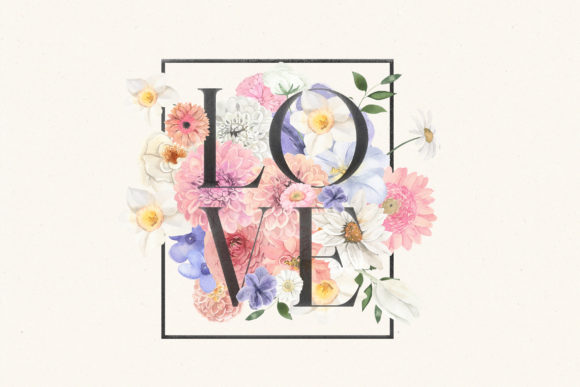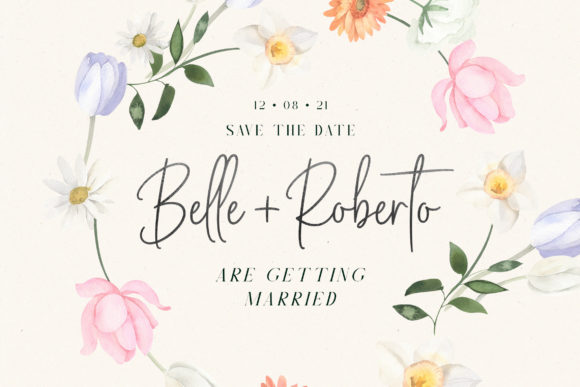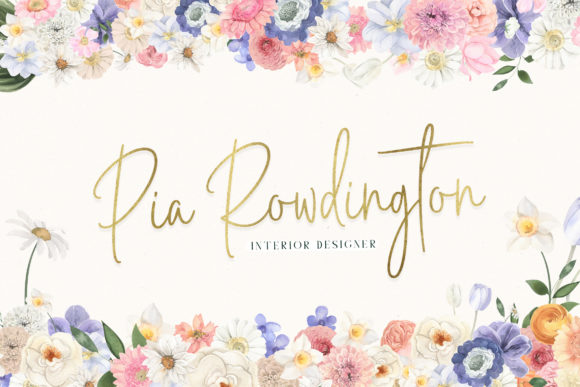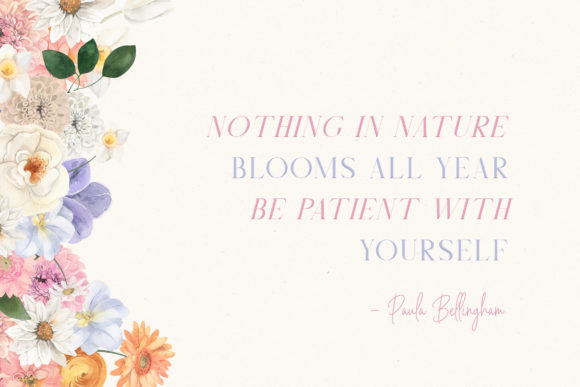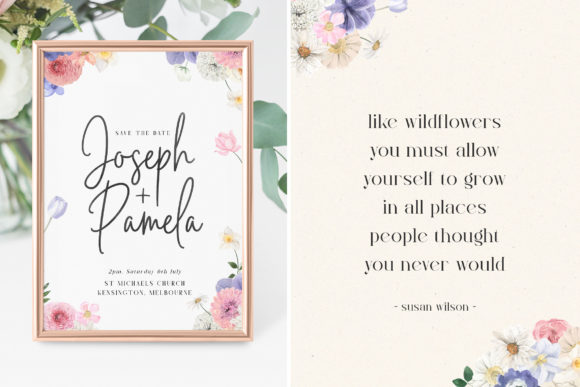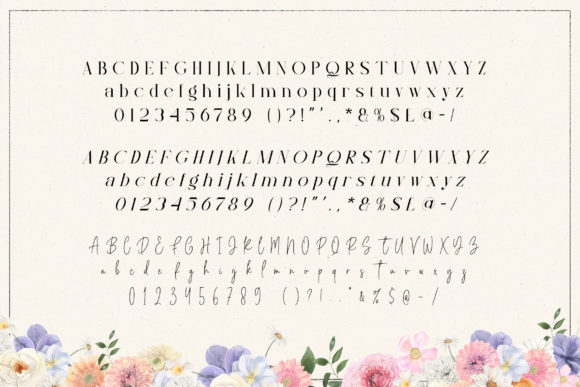
The Perfect Pair: Unlocking the Power of Bloomed Duo Font
Have you ever found yourself stuck in a creative rut, surrounded by scraps of paper, half-finished projects, and a nagging sense of “what if?” I know I have. But then, like a ray of sunshine on a cloudy day, the perfect font comes along and changes everything. For me, that font is Bloomed Duo, a stunning pair of fonts designed to complement each other in perfect harmony.
Whether you’re a seasoned designer or a crafty beginner, the Bloomed Duo Font is an absolute game-changer. Its two fonts, expertly crafted to work together or apart, add a touch of elegance and whimsy to any project. Plus, with its PUA encoding, accessing all the glyphs and swashes is a breeze. This means you can focus on what matters most – bringing your vision to life.
- Unique Characteristics: The Bloomed Duo Font features a beautiful, hand-drawn design with a mix of elegant and playful elements, making it perfect for creative projects.
- Font Pairing: The font comes in a duo format, allowing designers to pair two complementary styles (Regular and Script) to create visually appealing combinations.
Bloomed Duo Font Review
As a designer, I was excited to dive into the Bloomed Duo Font and see what it had to offer. Here’s my honest review.
- The Bloomed Duo Font has a unique, whimsical feel that’s perfect for creative projects.
- The font is highly customizable, with a range of options for color, size, and layout.
- The font is also highly legible, making it perfect for body text or headings.
- The font is compatible with a wide range of devices and browsers, making it a great choice for web design projects.
- The font may be too playful for more formal or corporate projects.
- The font is not ideal for small text sizes, as the details can get lost.
- The font may not be the best choice for projects that require a lot of bold, attention-grabbing text.
The Bloomed Duo Font is a great choice for designers who want to add a touch of whimsy to their projects. While it may have some limitations, it’s a versatile and highly customizable font that’s perfect for a wide range of creative projects.
Use the Bloomed Duo Font for creating elegant and sophisticated designs, especially for wedding invitations, baby showers, and other special occasions.
The Bloomed Duo Font is ideal for:
Baby shower invitations and decorations
Special occasion greeting cards
Brand identity and marketing materials